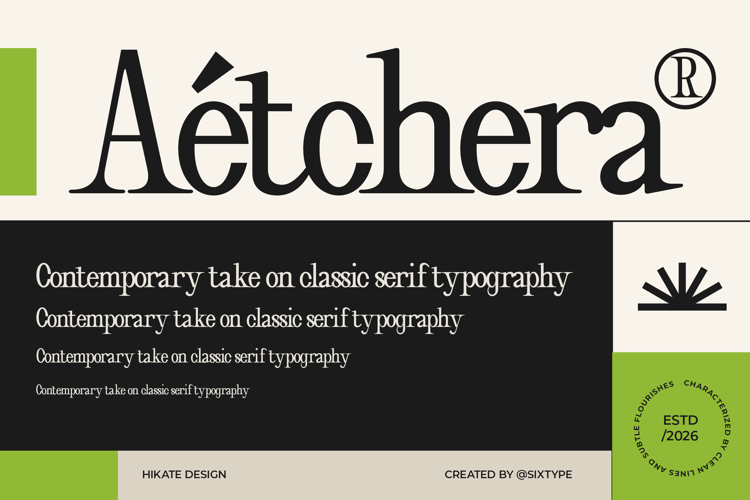
Hikate - Font
Hikate is a refined serif typeface that reinterprets classic typography with a modern sensibility. Featuring high contrast strokes, graceful curves, and subtle decorative flourishes, it delivers a sophisticated and expressive tone while maintaining excellent readability. Its distinctive character shapes especially in select uppercase and lowercase forms add a unique personality that stands out in premium branding, editorial design, and luxury packaging. Hikate strikes a perfect balance between tradition and innovation, making it an ideal choice for designers seeking a timeless serif with a fresh, stylish edge. This typeface is perfect for headlines, identity systems, and elegant layouts that demand both clarity and character, enhancing any project with its refined aesthetic.